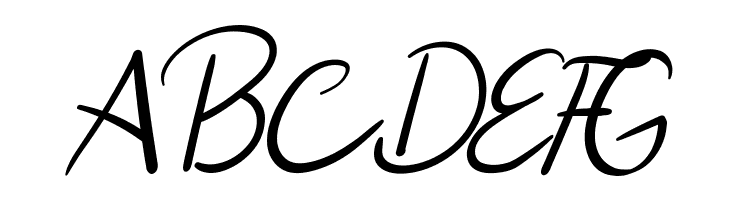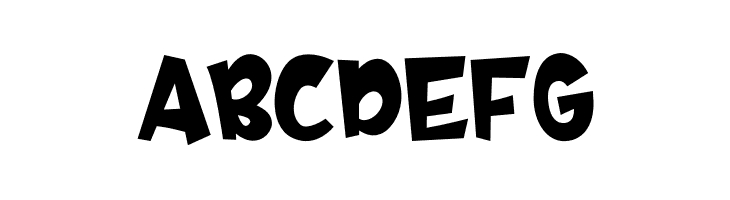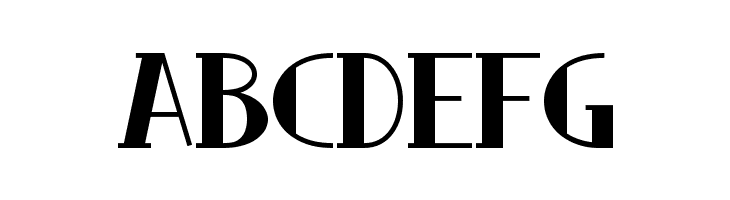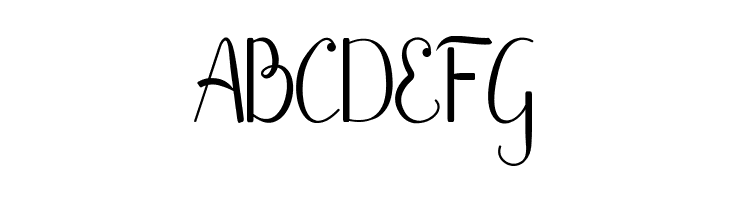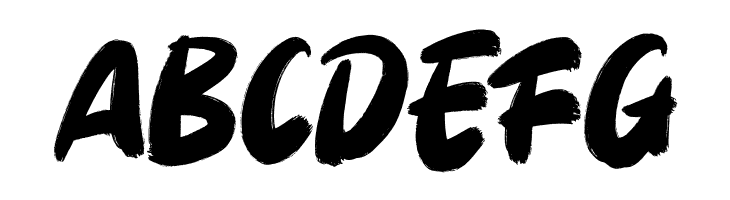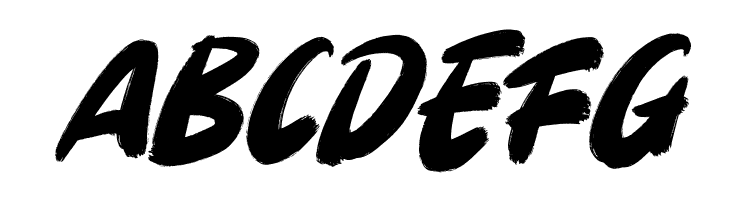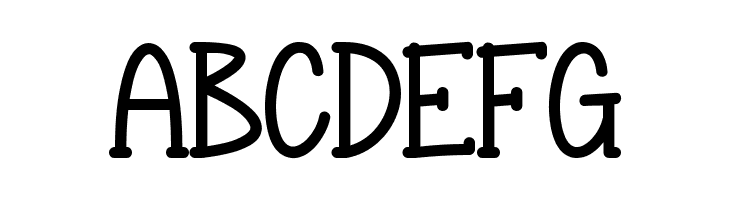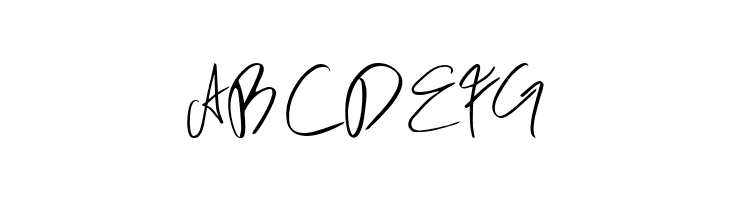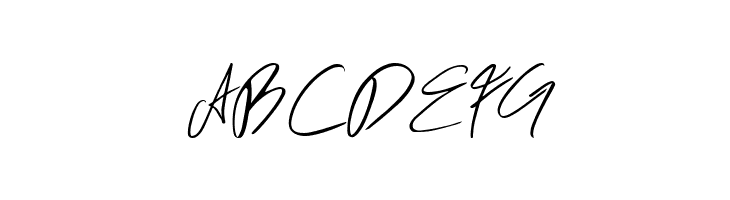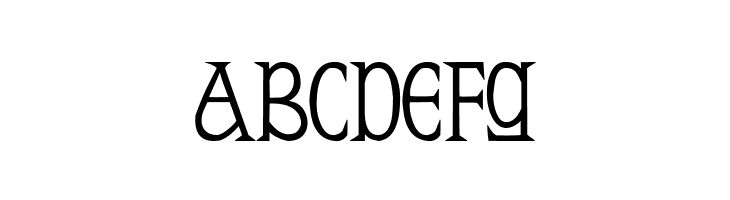
A graceful and fluid script font with elegant, flowing letterforms.
A bold, expressive handwritten font with dynamic strokes and a brush-like texture.
A bold, slanted script font with a brush-like, dynamic style.
A cursive script font with elegant, flowing lines and connected characters.
( Fonts by madeDeduk )
Elegant cursive script with a handwritten style.
( Fonts by madeDeduk )
Casual handwritten script font.
( Fonts by Gartype Studio )
A bold, playful font with exaggerated curves and dynamic strokes.
( Fonts by RaisProject )
A playful, rounded font with a whimsical and friendly design.
A bold, modern font with high contrast and geometric influences.